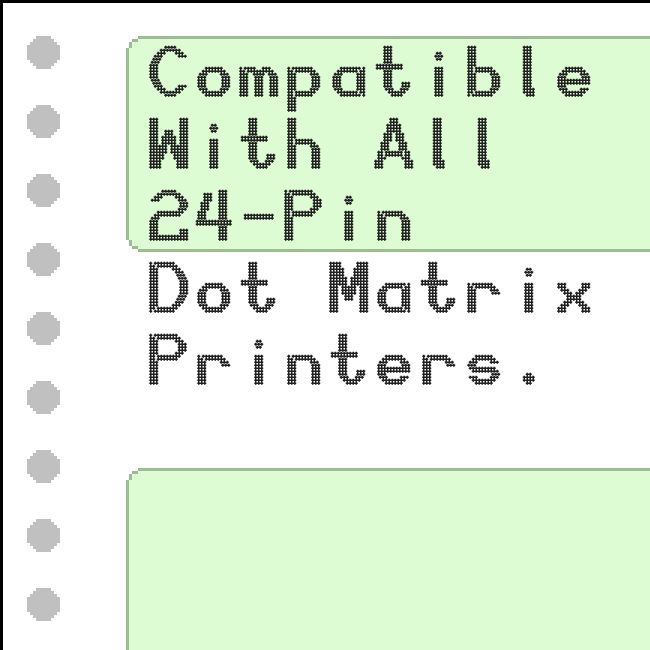
• Clone of Dot24Pin Sans Outline.
Still dreaming of 24-pin printers...
This original 24×15 typeface is designed around the limitations presented by the near letter quality (NLQ) output of dot matrix printers (DMPs) during the '80s & '90s.  Partially inspired by J. David Sapir's DOS font design program, LQMATRIX, it could have easily been created using that program back in the day.
(The "smart phone"-looking character in the À position is simply a placeholder, used as a quick reference to set vertical height lines while FontStructing.)
Still dreaming of 24-pin printers...